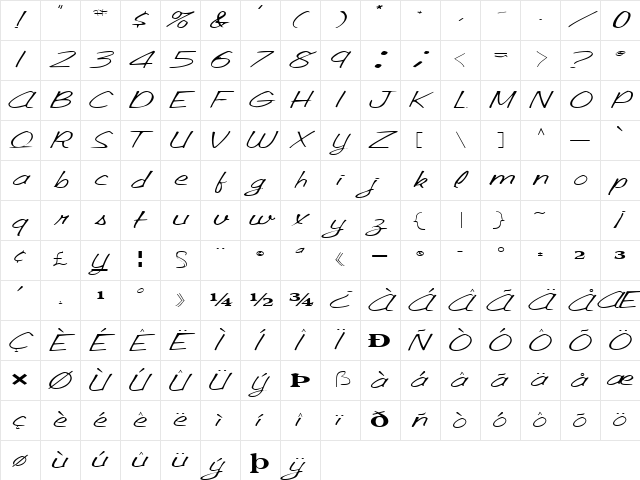
SkinTightReal74 Regular
Design Context for SkinTightReal74
SkinTightReal74 is a composed and adaptable typeface that performs quietly and consistently across a wide range of design contexts.
Pro Tip: Use SkinTightReal74 in both headline and body roles to test its range before committing to a single application.